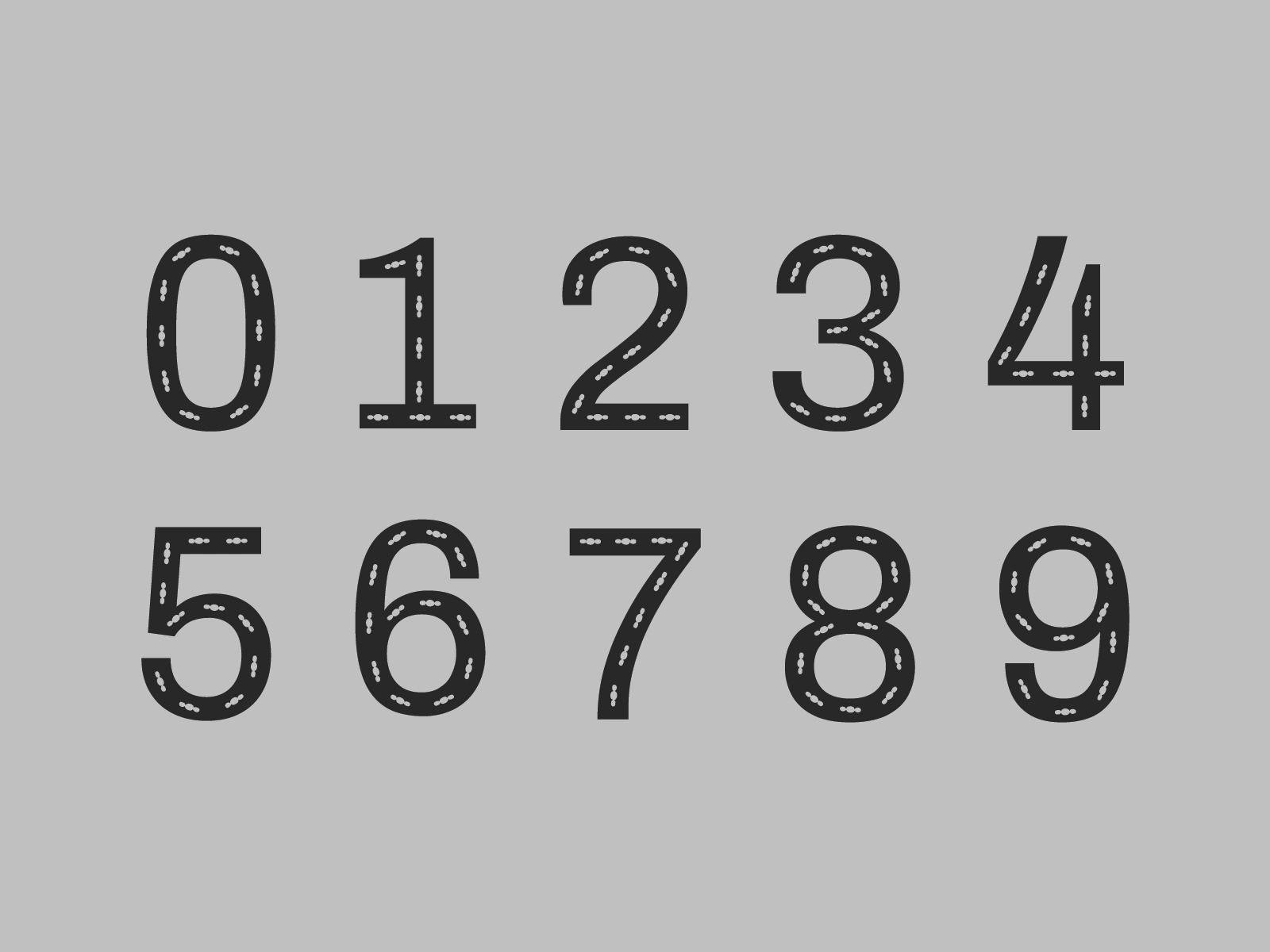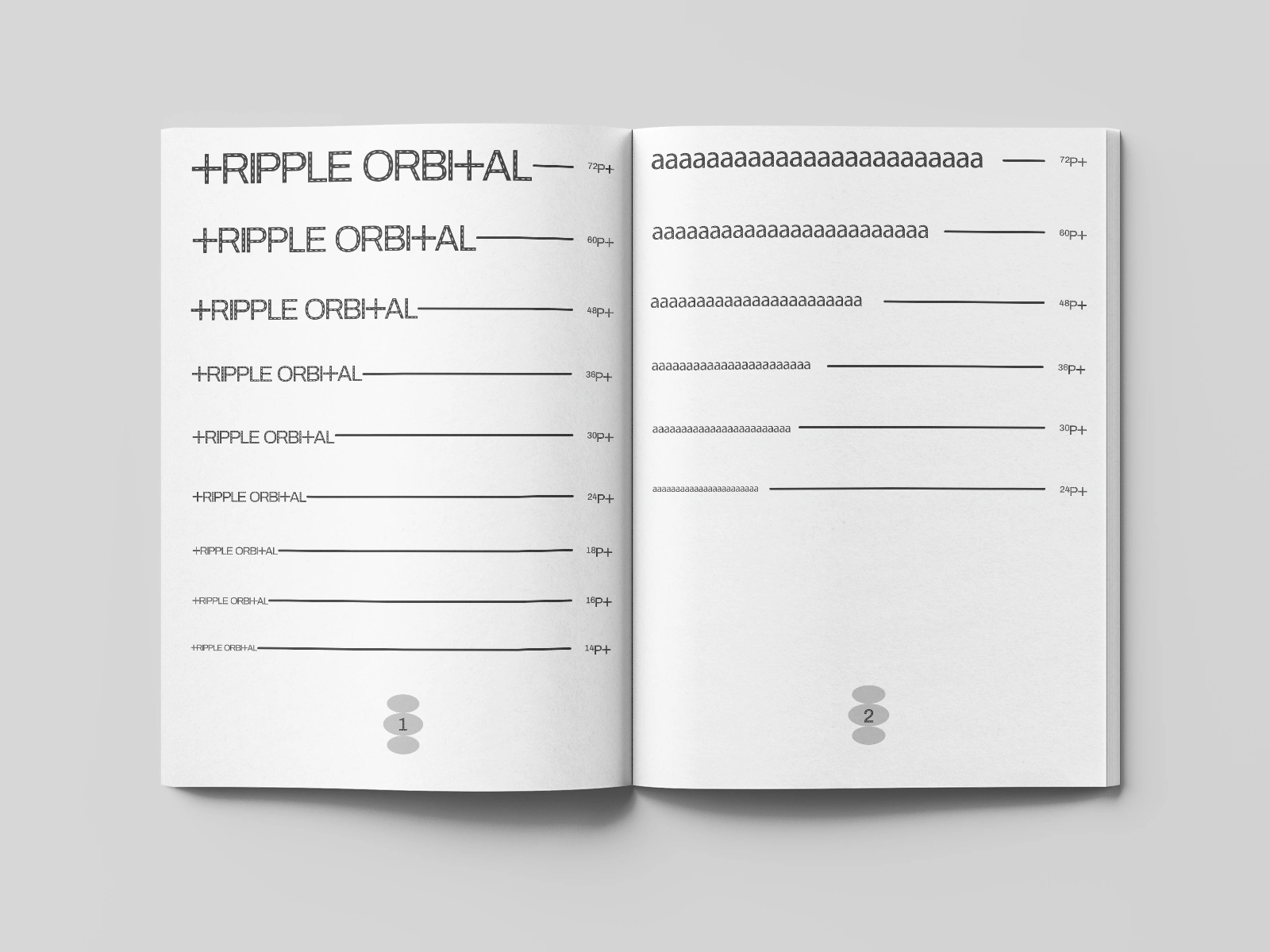
TRIPPLE ORBITAL TYPEFACE
This font is all about boldness and character. It has a strong industrial feel with a unique dotted cut out effect that makes it stand out. Whether you’re using it for branding, posters, or apparel, it brings a sense of precision, strength, and creativity.
I designed to be clean, modern, and easy to read, while still having that edgy futuristic touch.
The balance between uppercase lowercase and numbers makes it versatile for different projects.